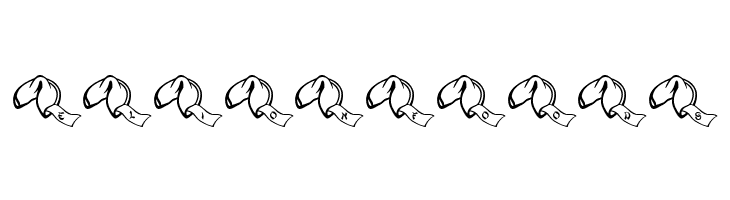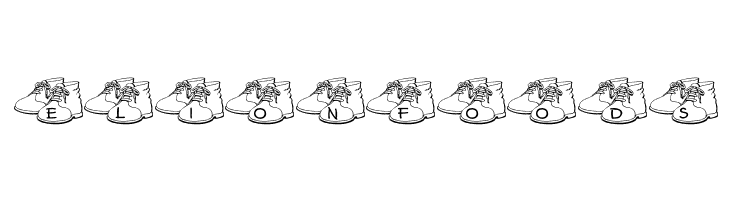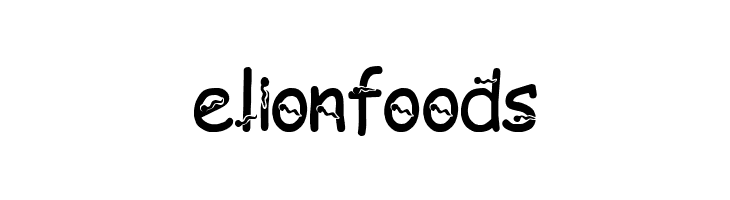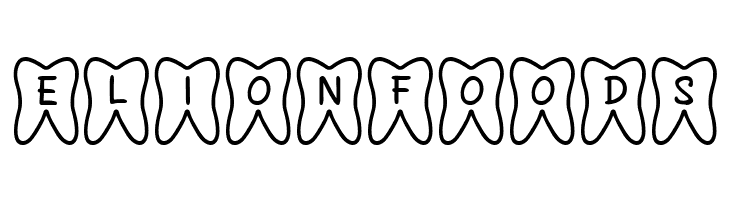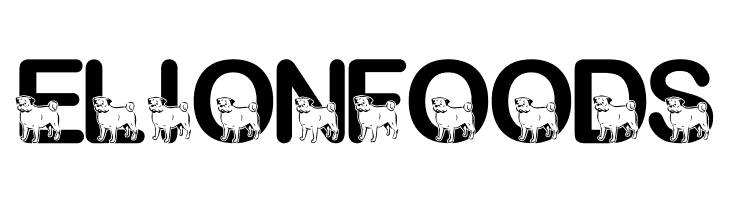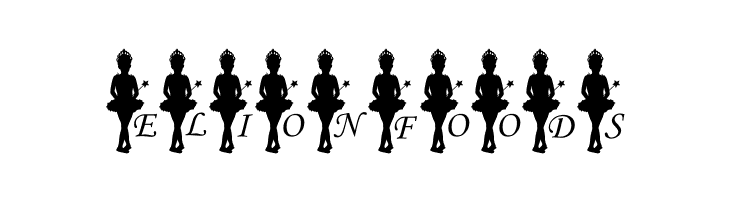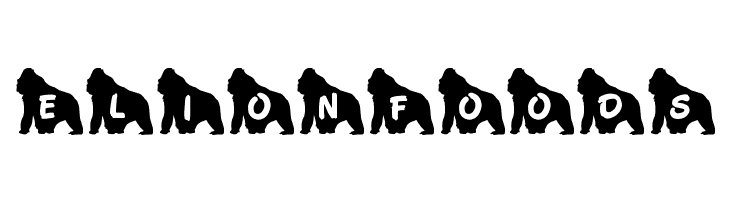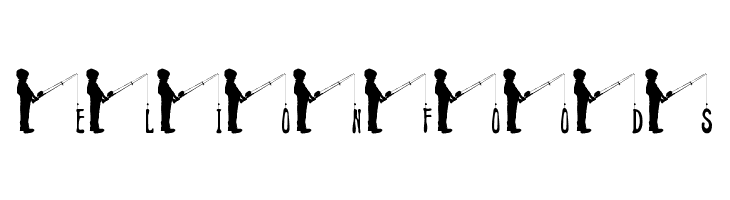
A playful and whimsical design featuring fortune cookies with slips of paper.
A playful font with letters embedded in school-themed doodles.
A whimsical font with characters embedded in bronzed shoe illustrations.
A playful and whimsical font with bold, decorative characters and unique circular elements.
A playful font with characters shaped like teeth, ideal for fun and dental-themed projects.
A playful font with bold letters and integrated cartoon dog illustrations.
A playful font with letters in heart-shaped wheelbarrows.
A whimsical and elegant script font with flowing, cursive letters.
A playful font with letters embedded in gorilla silhouettes, ideal for decorative use.
A whimsical decorative font featuring a child fishing silhouette with integrated letters.